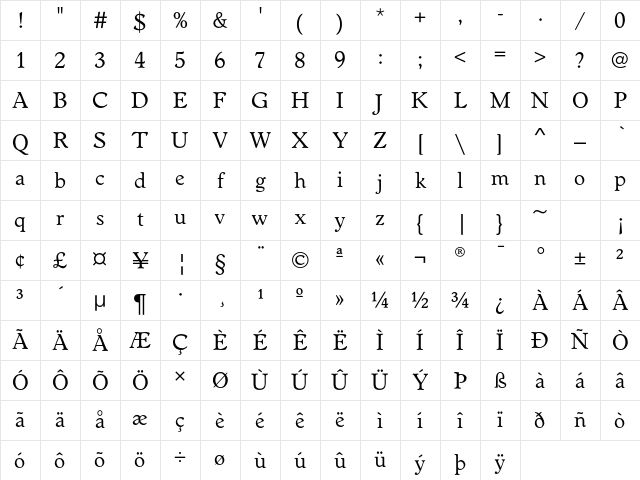
WorchesterEF Regular
WorchesterEF is a composed and adaptable typeface that performs quietly and consistently across a wide range of design contexts.
Pro Tip: Use WorchesterEF in both headline and body roles to test its range before committing to a single application.